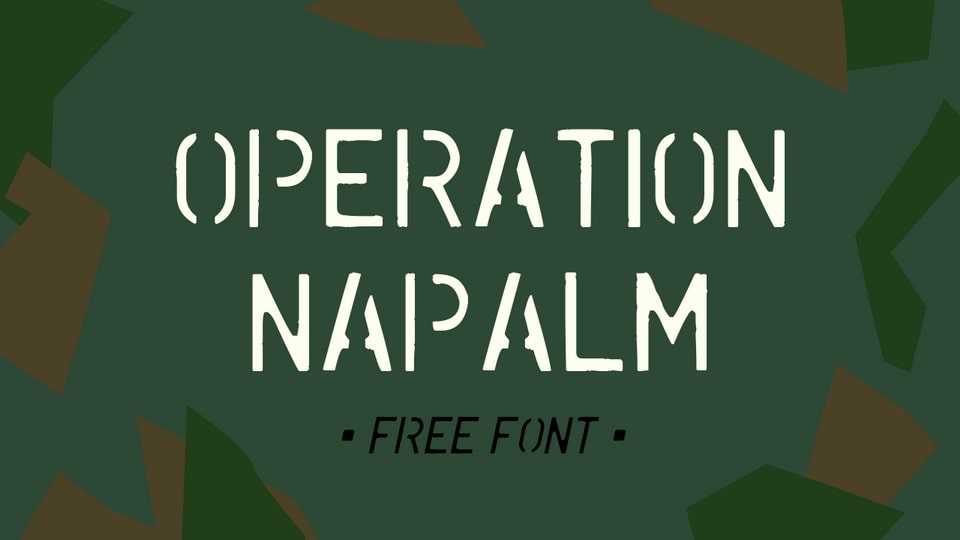
Download Operation Napalm font, a bold stencil army font that marches your designs into a world of disciplined strength and authoritative impact. Operation Napalm features a sturdy and uniform design, with each letter exuding a sense of order and control.